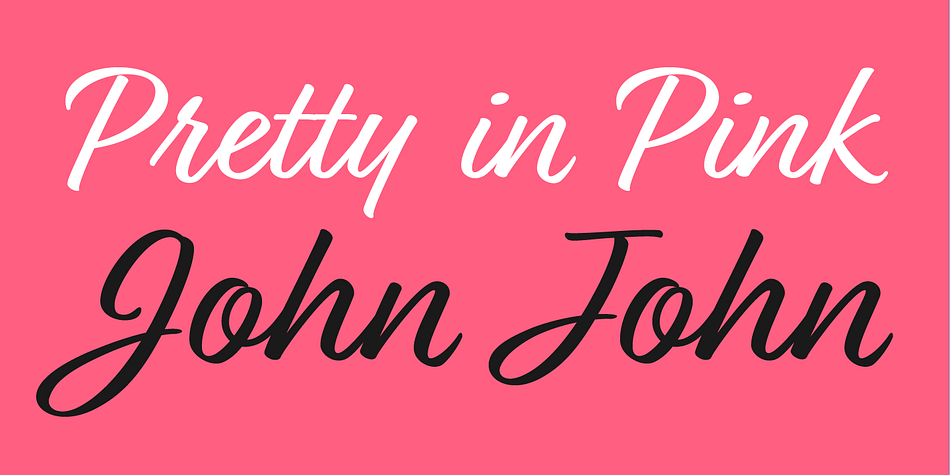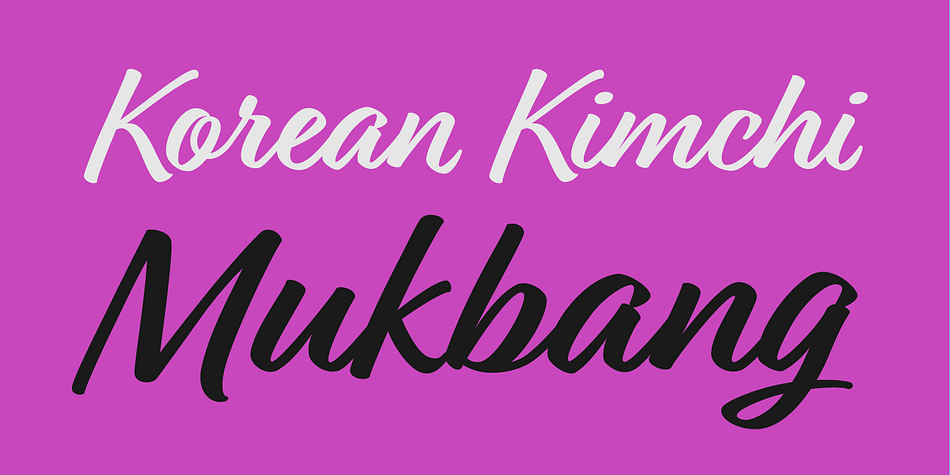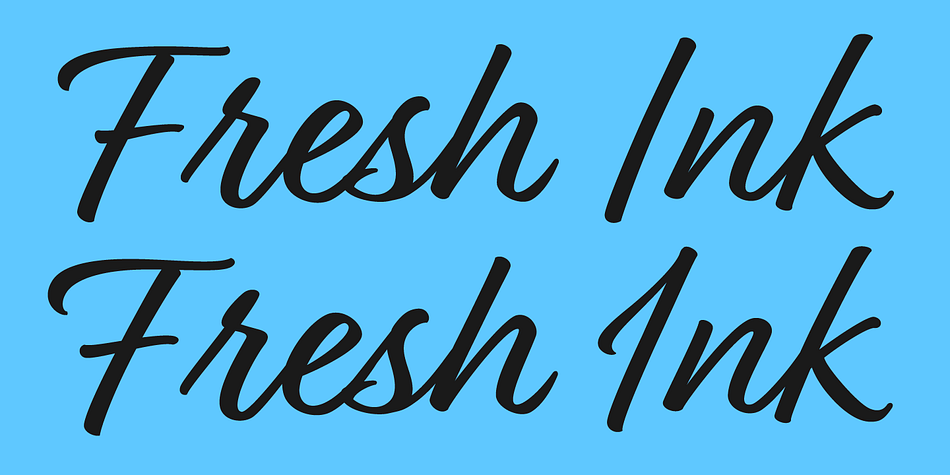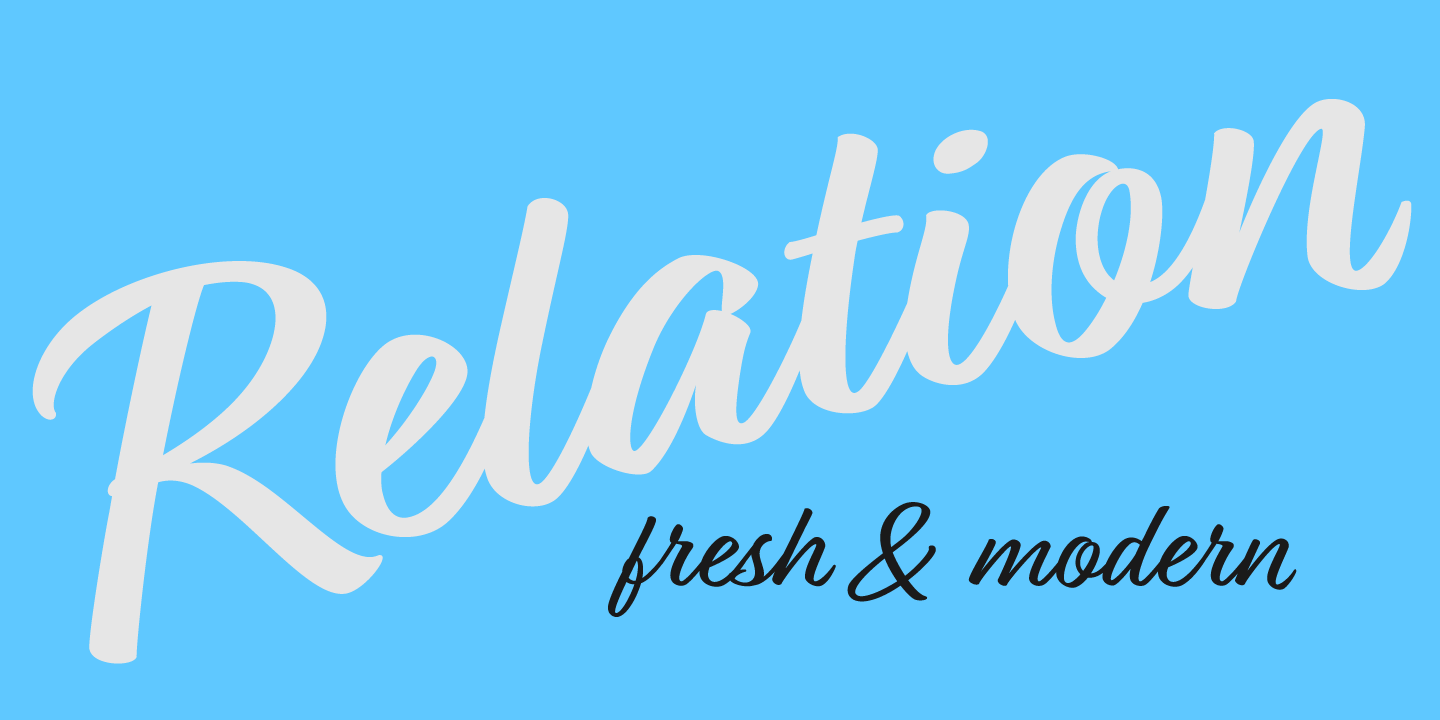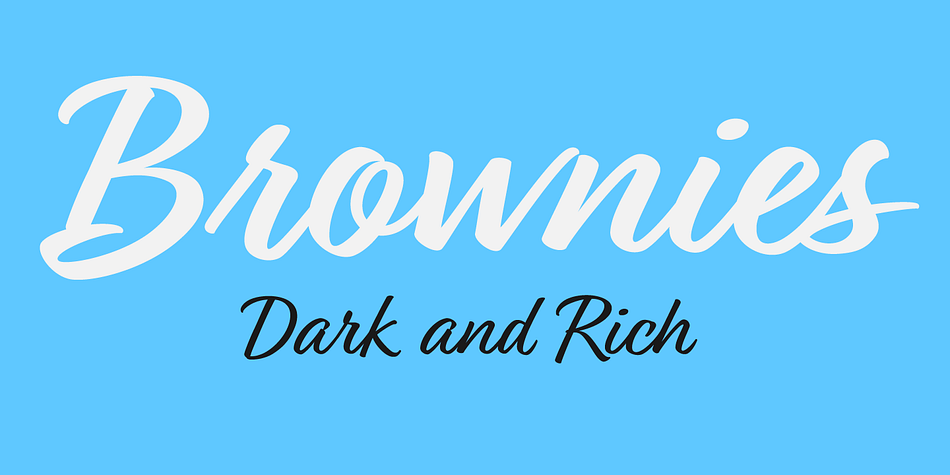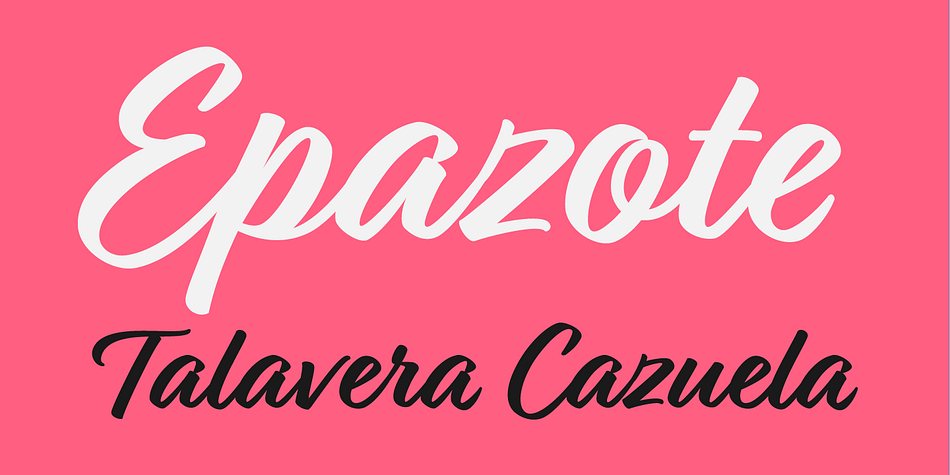
Designed by Jess Latham, Relation is a brush script font family. This typeface has four styles and was published by Jess Latham.
Relation is a beautiful family of brushed script fonts with a fresh and modern look. The alternate version (Relation Two) has a different style of caps. Each version is available in two weights: regular and bold. To get the most out of this typeface be sure to use a program that has opentype capabilities.